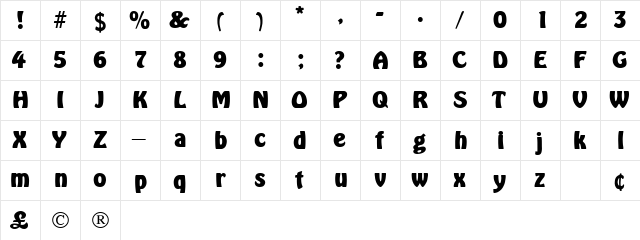
Loblolly Display SSi Regular
Design Context for Loblolly Display SSi Typeface
Loblolly Display SSi is built around its visual character rather than neutral utility — its distinctive forms are designed to make an impression at display sizes.
Font Pairing: Pair with a clean neutral sans-serif for body copy to let Loblolly Display SSi's character lead without overwhelming the composition.
Pro Tip: Use Loblolly Display SSi exclusively at display sizes — it was designed to be seen, not read at length. Let a neutral companion handle body copy.